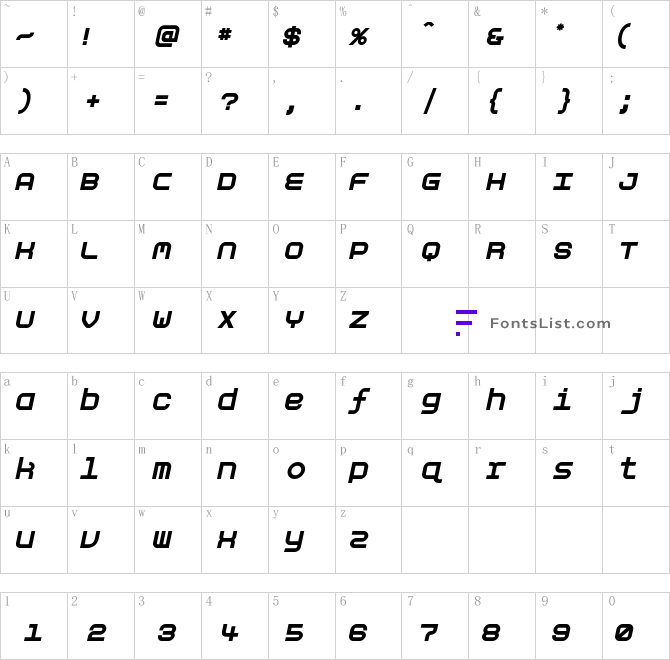
- Font Name:Aspirin-Refill-Collapsed
Aspirin-Refill-Collapsed-Regular.ttf is a very beautiful artistic font, Aspirin-Refill-Collapsed-Regular.ttf is widely used in the design and printing of various books and pictures,Aspirin-Refill-Collapsed-Regular.ttf has a strong visual impact,Aspirin-Refill-Collapsed-Regular.ttf is a commonly used font in newspapers, magazines and books, and is used in posters, e-commerce Poster design, store design, logo design, font design and other fields.Aspirin-Refill-Collapsed-Regular.